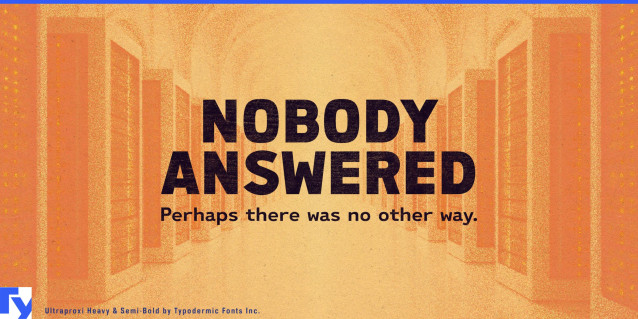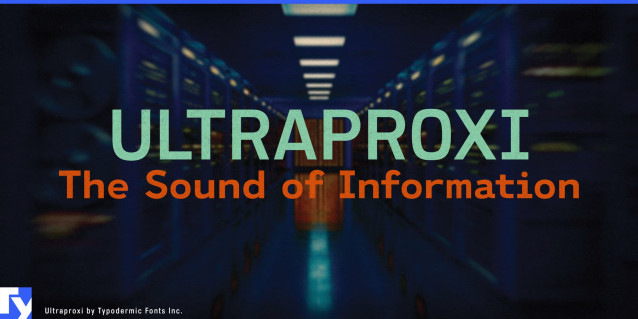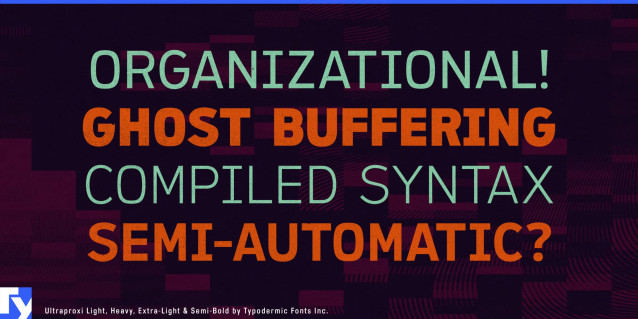
Ultraproxi Font Family
Ultraproxi draws inspiration from the clatter of 1960s line printers, translating that machine-room aesthetic into a contemporary typeface. Its geometry echoes monospaced lettering, but with proportional spacing that keeps headlines balanced and text flowing naturally.
Somewhere in the 1960s, an IBM 1403 chain printer clattered to life, hammering data onto green-bar paper with mechanical precision. Ultraproxi channels that moment—the staccato rhythm of steel and ink—into a typeface built for today.
It has the disciplined geometry of a monospaced font, but without the rigidity. Letters are proportionally spaced, so headlines feel balanced and body copy flows naturally. You still get that unmistakable “machine room” aesthetic—perfect for code snippets, tech branding, data dashboards, or editorial layouts that need a whiff of industrial cool.
Six weights with italics give you everything from light, wireframe-like captions to dense, bold statements that hit with the force of a line printer’s carriage return. And with language support that stretches from Latin to Cyrillic and Greek, Ultraproxi speaks in a global dialect of precision.